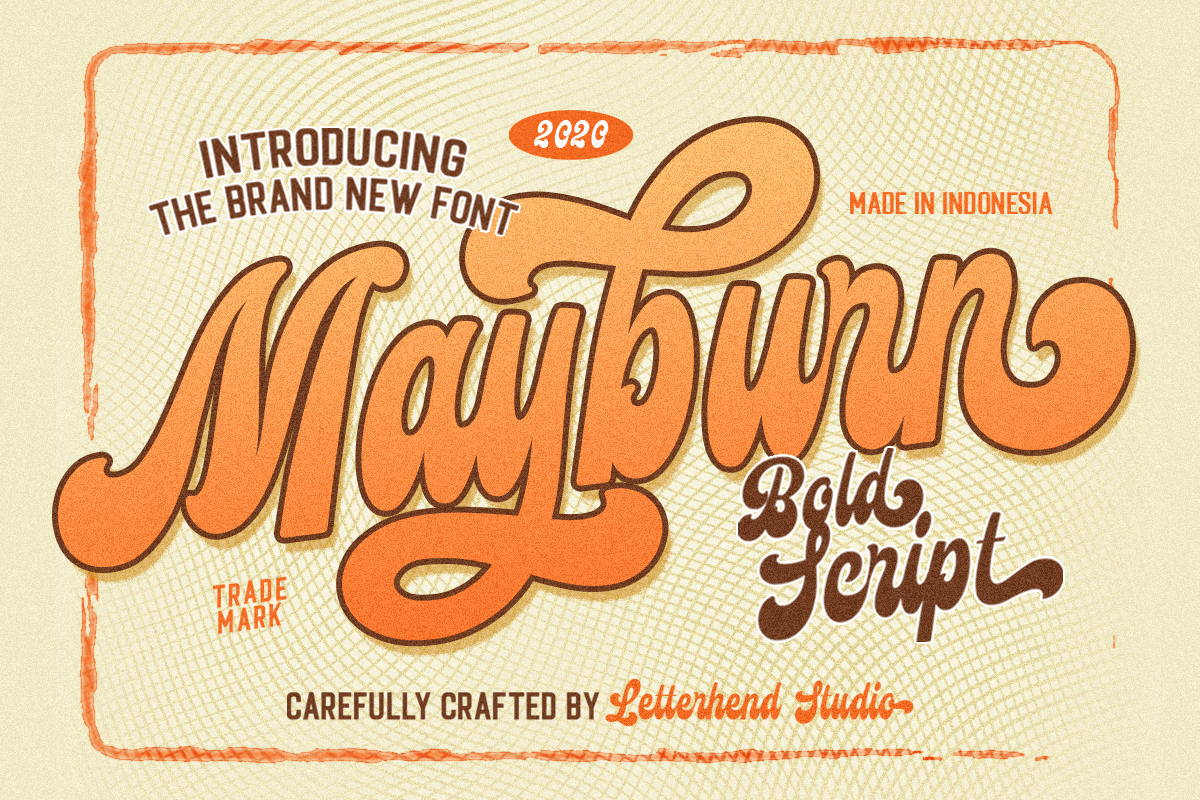
Mayburn Font
This charming and versatile typeface is perfect for artisanal product branding, craft brewery labels, organic food packaging, vintage-inspired posters, handmade goods marketing, coffee shop signage, farmers market displays, indie band album covers, and rustic wedding invitations that require an authentic, handcrafted aesthetic.
Mayburn Font brings excitement to design projects with its distinctive handwritten character and warm, approachable personality. The font captures the essence of authentic craftsmanship with its slightly irregular letterforms and natural flow that mimics genuine hand lettering. Its organic texture and personal touch make it an ideal choice for brands that want to communicate authenticity, creativity, and human connection in their visual storytelling.
The Mayburn Font family includes multiple expressive styles: Regular, Bold, Light, Script, Condensed, and Rough versions. Each variation maintains the font's handcrafted charm while providing designers with creative flexibility for different applications. The family also features decorative swashes, contextual alternates, unique ligatures, and special ornamental elements that enhance the overall artisanal feel.
The font's artisanal qualities include carefully crafted imperfections that add character, thoughtful spacing that ensures natural reading flow, and subtle variations that prevent mechanical repetition. Whether you're designing for local businesses, creative agencies, or lifestyle brands, this font delivers the authentic touch that makes your content stand out in today's digital landscape.